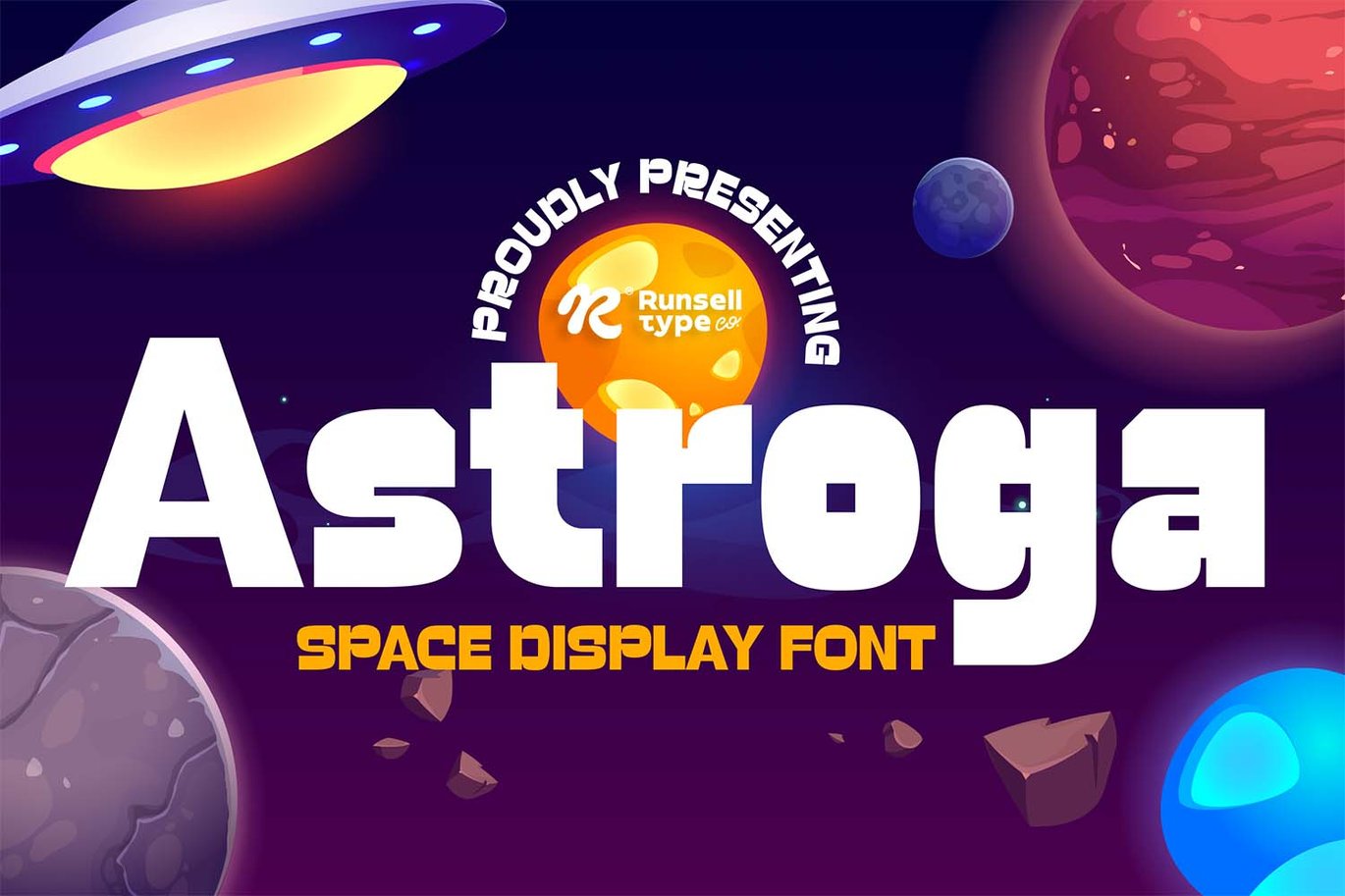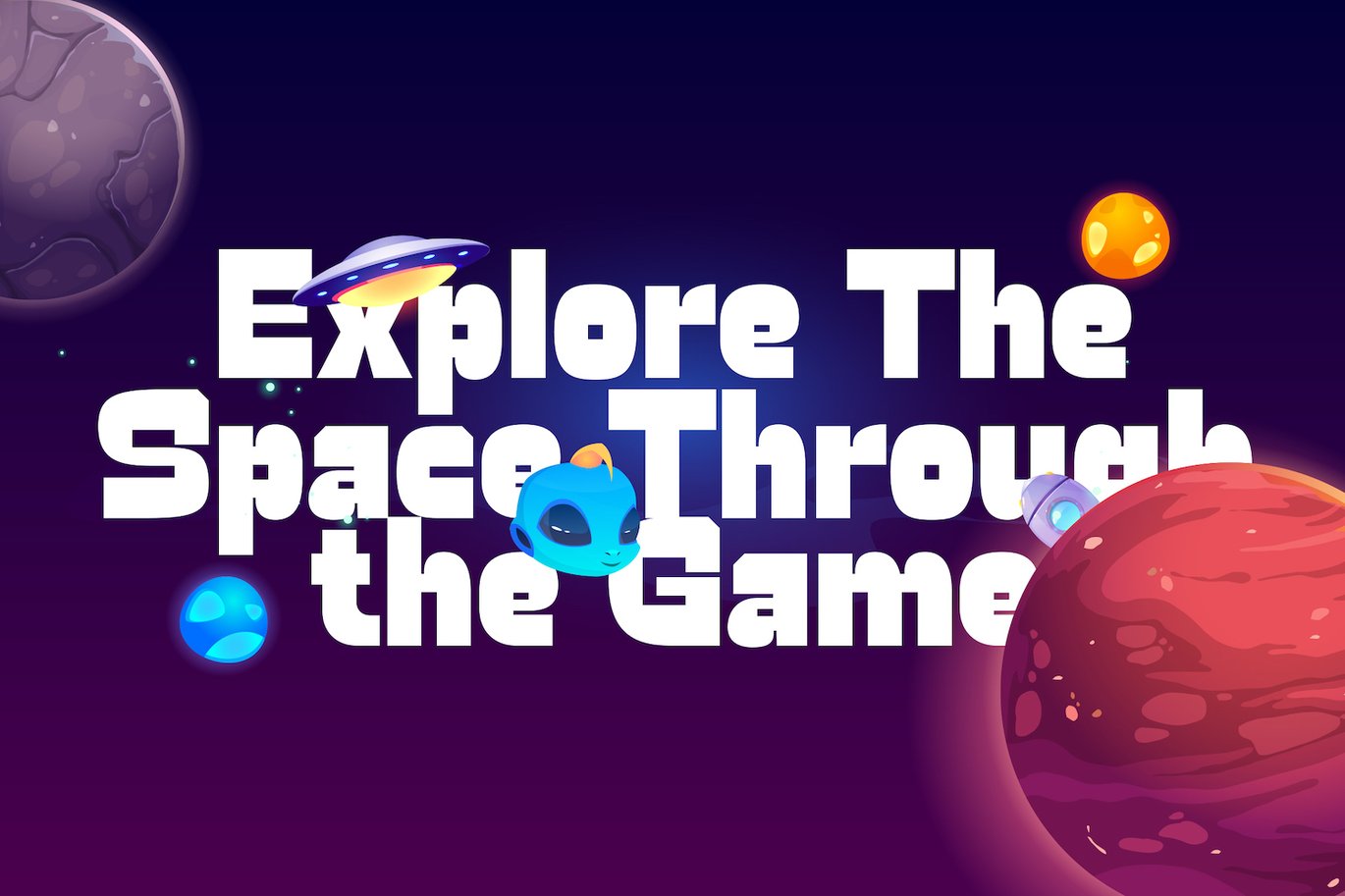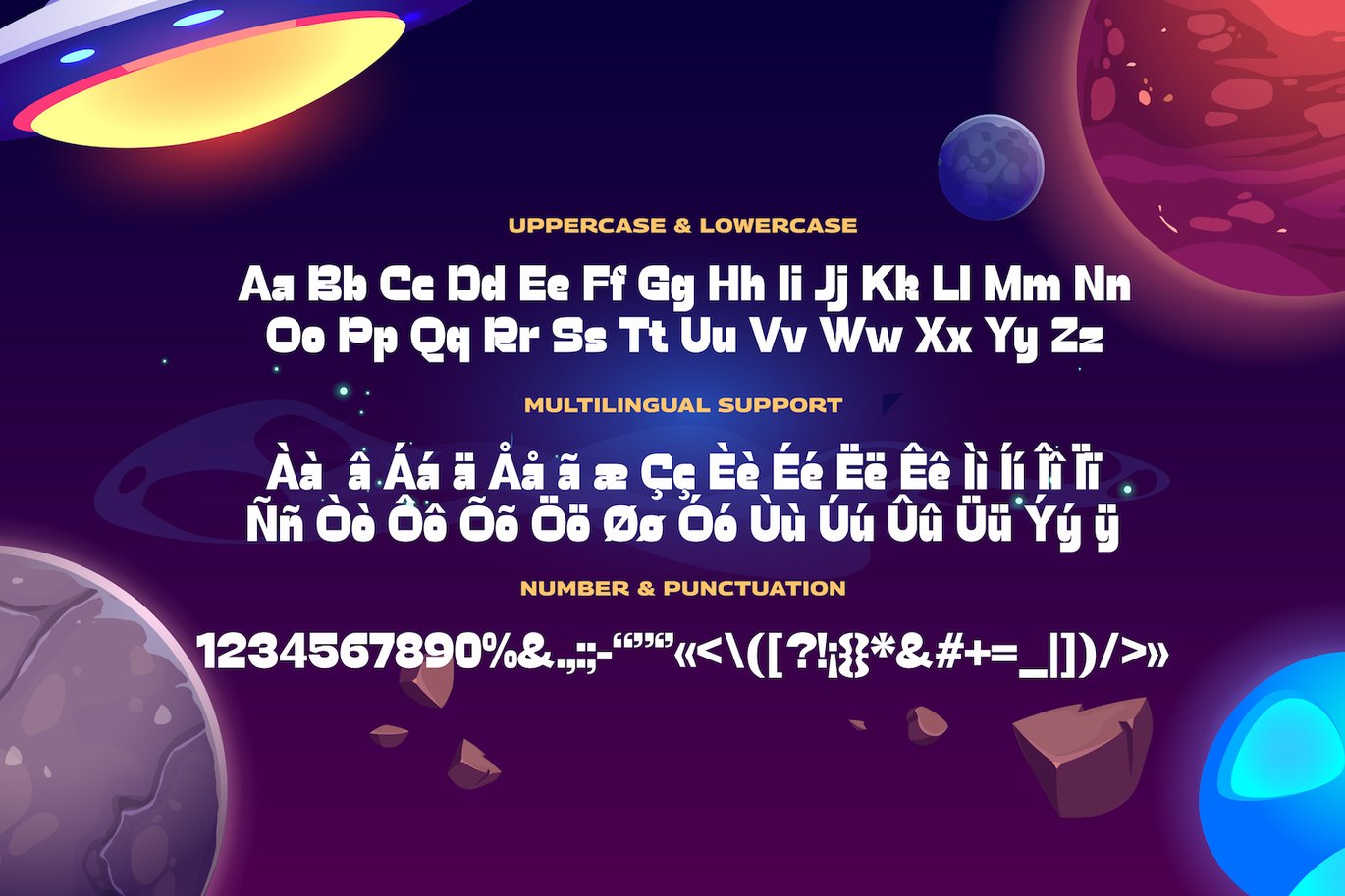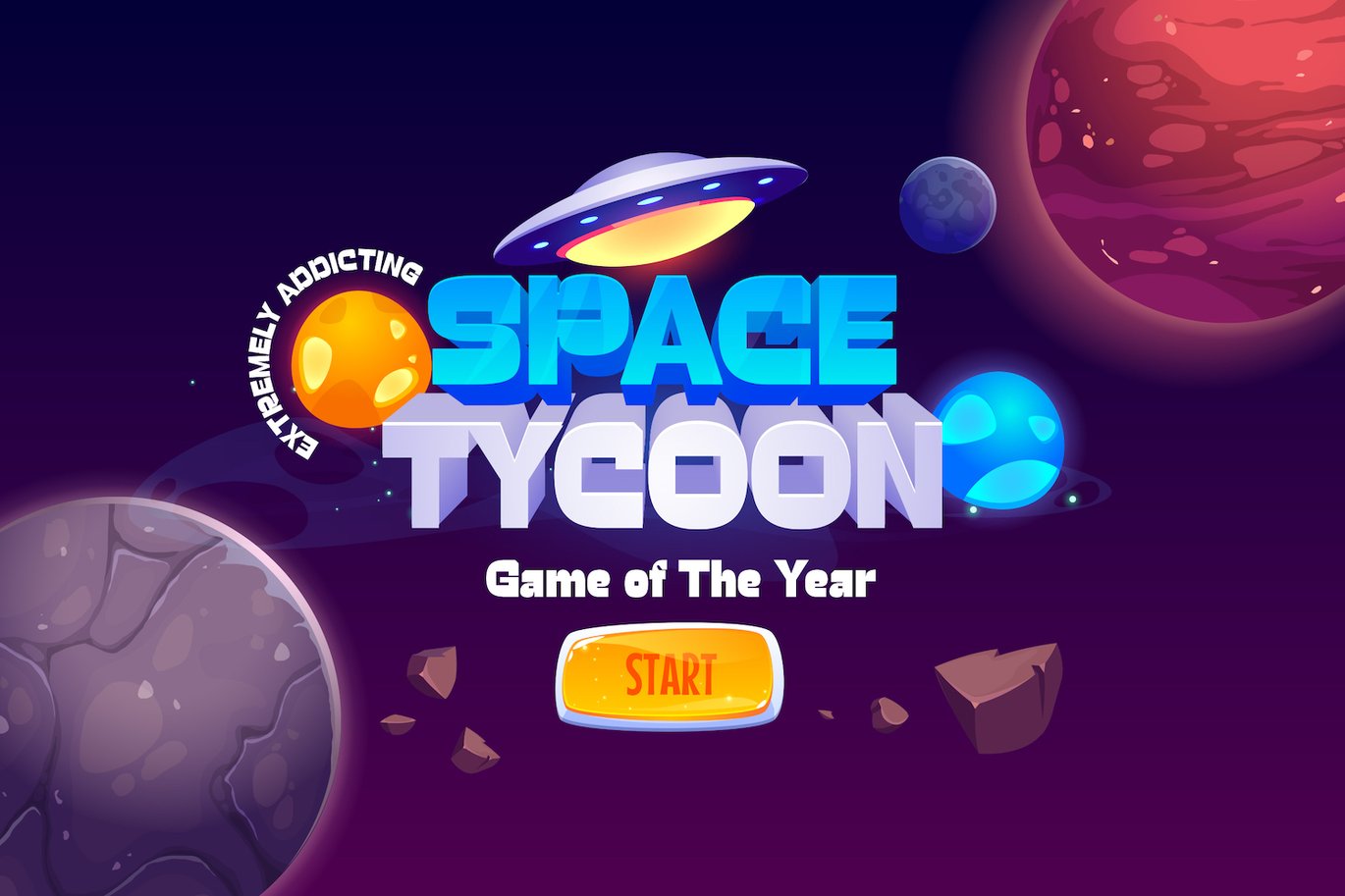
Astroga – Space Futuristic Font
Presenting Astroga Font is suitable logo, branding, childern book, game, t-shirt, magazine, headline. Our fonts have Uppercase & Lowercase, Numeral & Punctuation, Multilingual support and Opentype Features. For Amazing designs you can mix with other fonts as a complement.